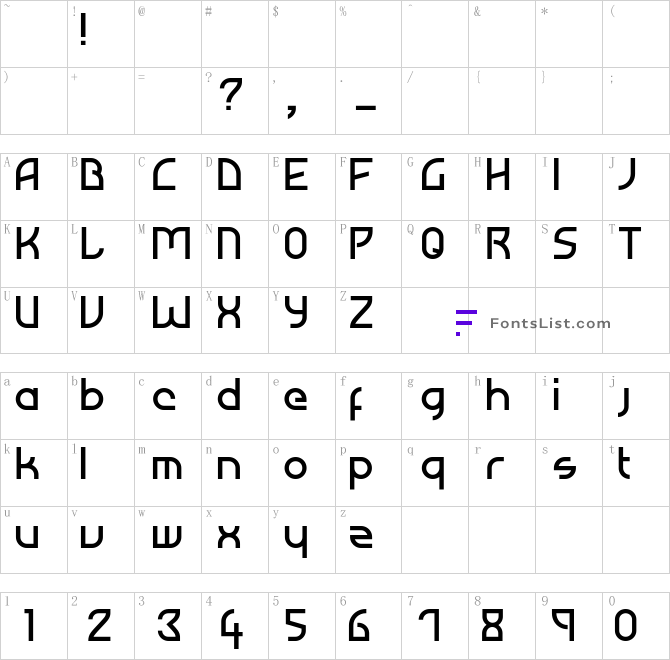
- Font Name:Atiba
Atiba-Regular.ttf is a very beautiful artistic font, Atiba-Regular.ttf is widely used in the design and printing of various books and pictures,Atiba-Regular.ttf has a strong visual impact,Atiba-Regular.ttf is a commonly used font in newspapers, magazines and books, and is used in posters, e-commerce Poster design, store design, logo design, font design and other fields.Atiba-Regular.